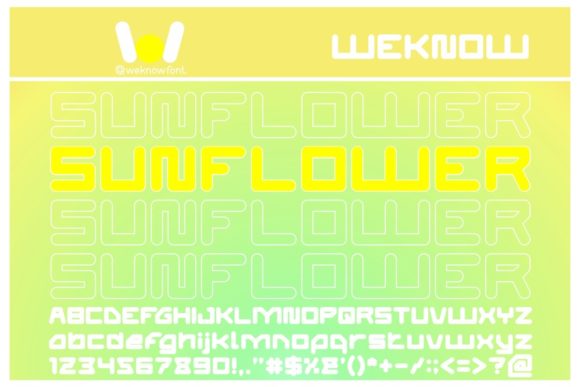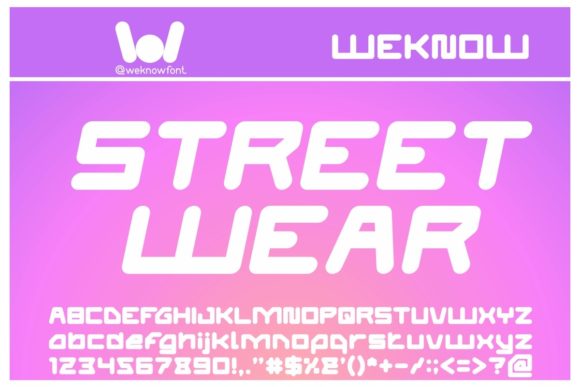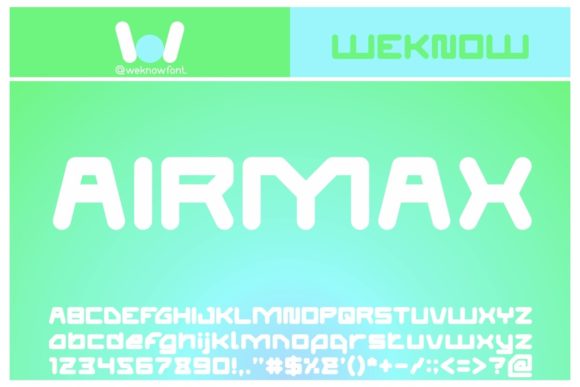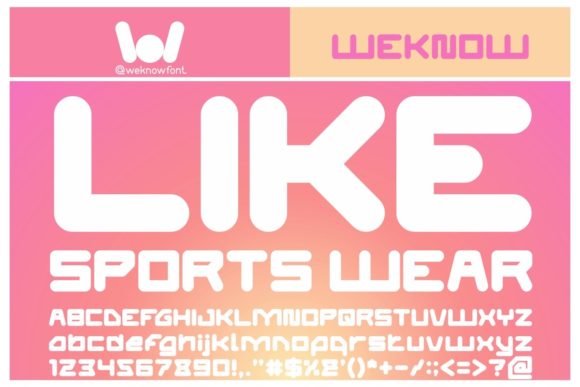
Athletic Font: The Ultimate Choice for Futuristic Designs
In the world of design, fonts play a crucial role in conveying the message and tone of a project. When it comes to creating futuristic and robotic designs, the right font can make all the difference. This is where Athletic Font comes in – a cool and robotic display font that’s perfect for adding a unique touch to your web designs, business cards, and more.
What is Athletic Font?
Athletic Font is a modern, sans-serif display font that’s designed to give your designs a futuristic and high-tech look. Its clean lines, geometric shapes, and robotic feel make it an ideal choice for designers who want to create a bold and eye-catching visual statement. Whether you’re working on a web design project, creating business cards, or crafting a logo, Athletic Font is the perfect choice.
Key Features of Athletic Font
- Unique and Futuristic Design: Athletic Font boasts a one-of-a-kind design that’s sure to grab attention. Its robotic feel and geometric shapes give it a futuristic look that’s perfect for modern designs.
- Highly Versatile: Athletic Font is a highly versatile font that can be used for a wide range of design projects, from web designs and business cards to logos and branding materials.
- Easily Readable: Despite its futuristic design, Athletic Font is surprisingly easy to read, making it perfect for use in body text as well as headings.
- Customizable: Athletic Font comes with a range of customization options, allowing you to tailor it to your specific design needs.
Use Cases for Athletic Font
Athletic Font is a versatile font that can be used in a variety of design projects. Here are some use cases where Athletic Font really shines:
- Web Design: Athletic Font is perfect for web designs that require a futuristic and modern look. Use it for headings, titles, and buttons to create a bold and eye-catching visual statement.
- Business Cards: Athletic Font is a great choice for business cards that need to make a lasting impression. Its unique design and robotic feel make it perfect for professionals who want to stand out.
- Logos and Branding: Athletic Font is an excellent choice for logos and branding materials that require a modern and futuristic look. Use it to create a bold and memorable brand identity.
- Advertising and Marketing: Athletic Font is perfect for advertising and marketing materials that need to grab attention. Use it for headlines, titles, and slogans to create a bold and eye-catching visual statement.
Tips for Using Athletic Font
Here are some tips for using Athletic Font in your design projects:
- Use it Sparingly: Athletic Font is a bold and attention-grabbing font, so use it sparingly to avoid overwhelming your design.
- Pair it with Other Fonts: Athletic Font pairs well with other fonts, so experiment with different combinations to create a unique visual statement.
- Adjust the Size and Color: Athletic Font looks great in a variety of sizes and colors, so experiment with different options to find the perfect fit for your design.